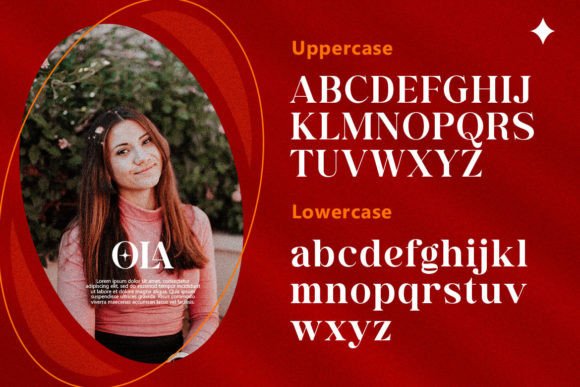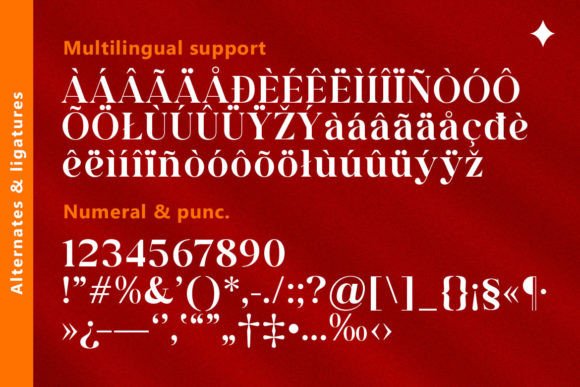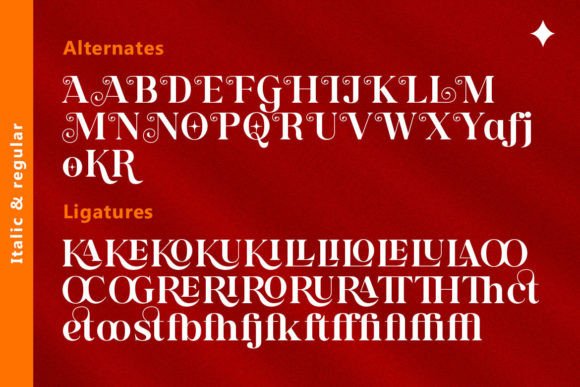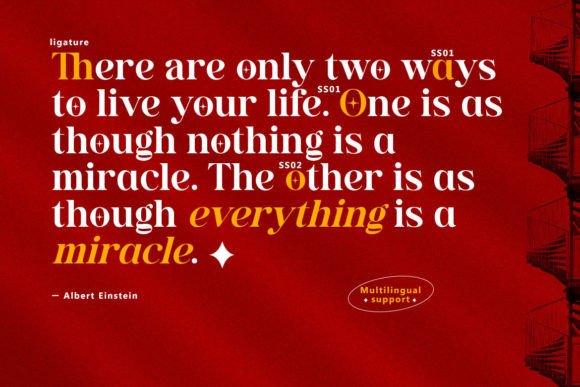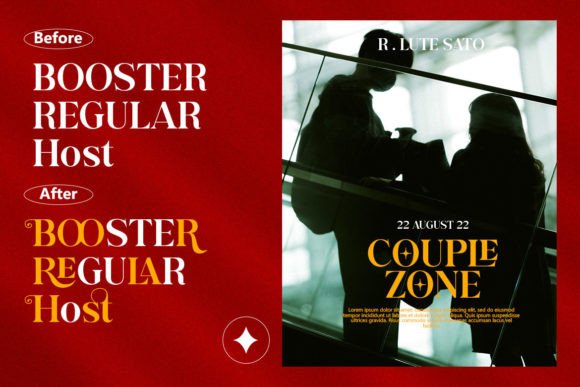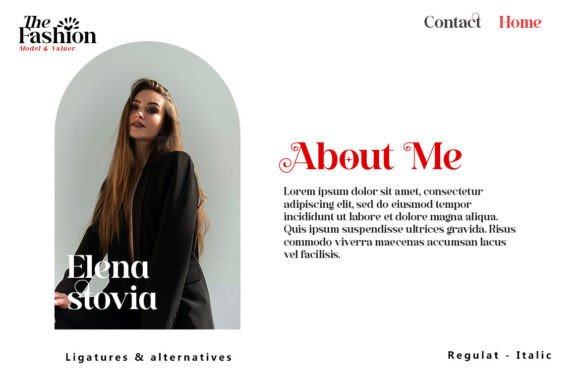
Aurennakari Font: Elevate Your Designs with Elegance and Sophistication
In the world of typography, fonts play a crucial role in conveying the tone and personality of a design. For designers and crafters seeking to add a touch of elegance and sophistication to their projects, the Aurennakari font is an excellent choice. This stylish and elegant serif font is perfect for a variety of designs that require a personalized style, such as wedding invitations, thank you cards, greeting cards, logos, and more.
What Makes Aurennakari Font Stand Out?
Aurennakari is a beautifully crafted serif font that exudes refinement and luxury. Its classic design makes it an ideal choice for projects that demand a high level of sophistication. The font’s elegant lines, precise curves, and balanced proportions create a visually appealing aesthetic that is sure to captivate your audience.
One of the key features that sets Aurennakari apart from other fonts is its versatility. Whether you’re designing a wedding invitation, a logo, or a greeting card, this font adapts seamlessly to different contexts, ensuring that your design looks polished and refined.
Aurennakari font is perfect for creative projects that require a personal touch. Here are some of the ways you can use this beautiful font:
• Wedding Invitations: Add a touch of elegance to your wedding invitations with Aurennakari font. Its classic design and sophisticated look make it perfect for formal wedding invitations.
• Thank You Cards: Express your gratitude in style with Aurennakari font. This font is ideal for creating beautiful thank you cards that will leave a lasting impression.
• Greeting Cards: Create stunning greeting cards for special occasions such as birthdays, anniversaries, and holidays with Aurennakari font.
• Logos: Use Aurennakari font to create a sophisticated logo for your business or brand. Its elegant design makes it perfect for luxury brands, boutiques, and high-end services.
Why Choose Aurennakari Font?
There are many reasons why Aurennakari font stands out from the rest. Here are some of the benefits of using this beautiful font:
• Elegant Design: Aurennakari font features an elegant design that adds a touch of sophistication to any project.
• Versatility: This font is versatile and can be used for a variety of projects, from wedding invitations to logos.
• Easy to Read: Aurennakari font is easy to read, making it perfect for body text and headlines.
• Unique: This font is unique and distinctive, ensuring that your design stands out from the crowd.
Tips for Using Aurennakari Font
To get the most out of Aurennakari font, here are some tips to keep in mind:
• Pair with Other Fonts: Experiment with pairing Aurennakari font with other fonts to create a unique and visually appealing combination.
• Use for Headlines and Body Text: Use Aurennakari font for both headlines and body text to create a cohesive and polished look.
• Adjust Font Size: Adjust the font size to create visual hierarchy and emphasize important information.
Aurennakari font is a stylish and elegant serif font that is perfect for designers and crafters seeking to add a touch of sophistication to their projects. Its classic design, versatility, and ease of use make it an excellent choice for a variety of creative projects. Whether you’re designing a wedding invitation, a logo, or a greeting card, Aurennakari font is sure to elevate your design and leave a lasting impression.